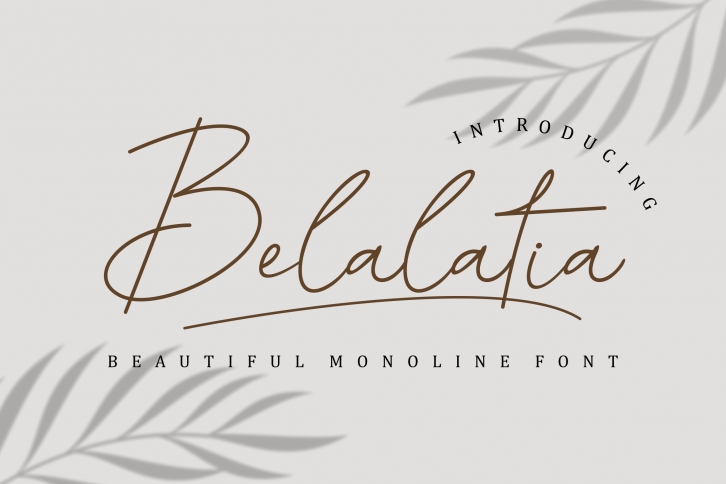
Belalatia is a thin and authentic script font. The font is suitable for any branding project like logo, t-shirt printing, watermarks, and many more. It will look outstanding in a wide range of contexts.